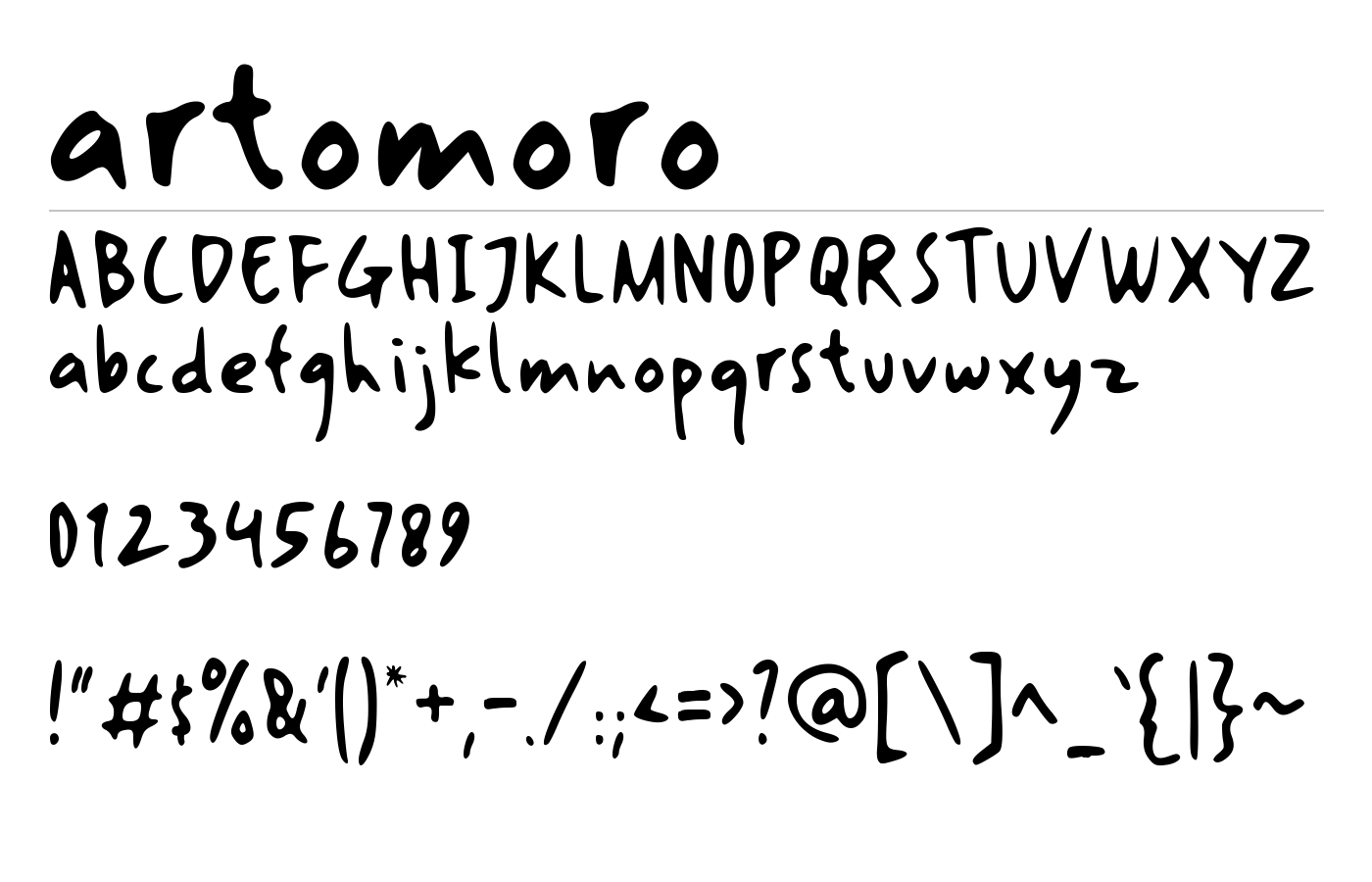
Artomoro is a playful and informal handwritten sans serif font with a casual, friendly feel. Its tall, slightly irregular letterforms with moderate contrast and quirky shapes give it a unique charm, perfect for projects that want to convey creativity and approachability. This font works beautifully in children’s books, casual branding, and fun headline designs where a personal, hand-drawn touch is desired.
artomoro Font
About artomoro Font